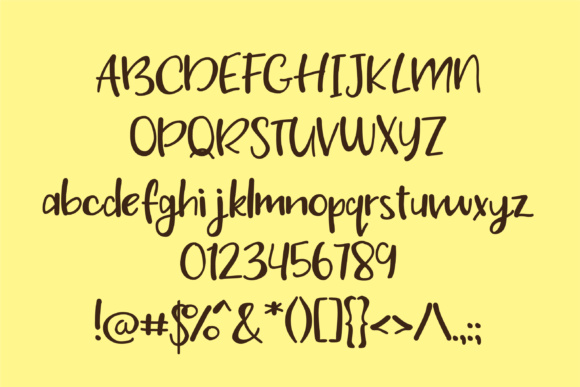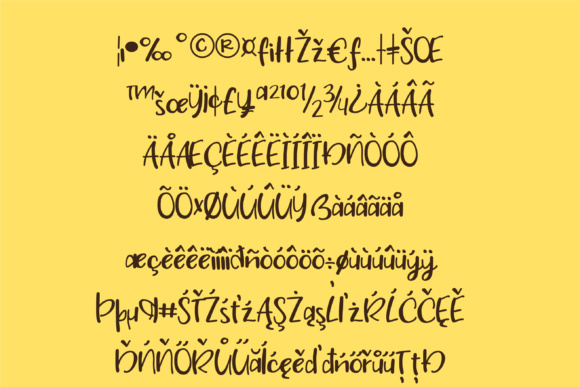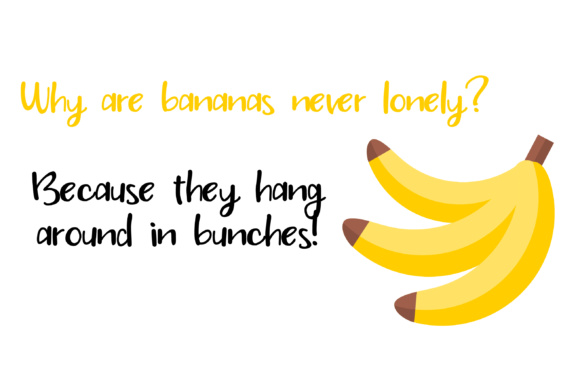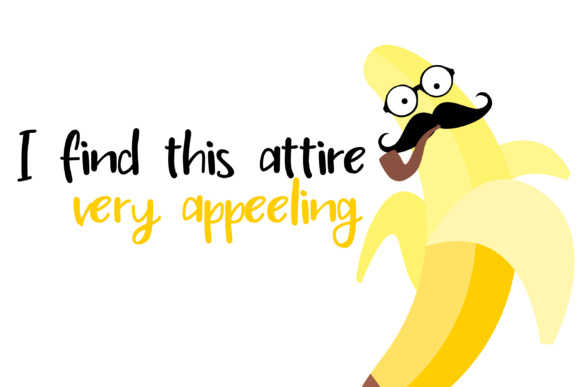
PN Banana Split Font
About PN Banana Split Font
This cute hand-written print has a fun and casual feel. Check out her sister font: PN Banana Split Script for a cursive version.